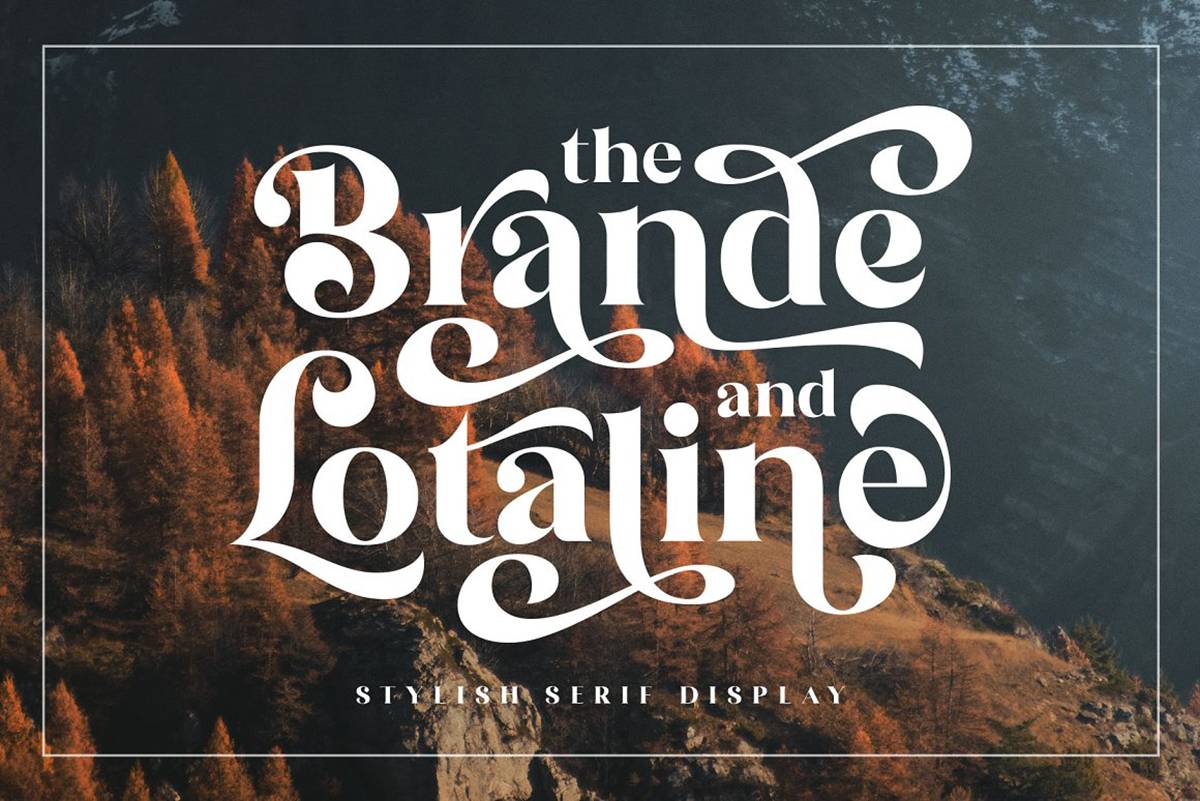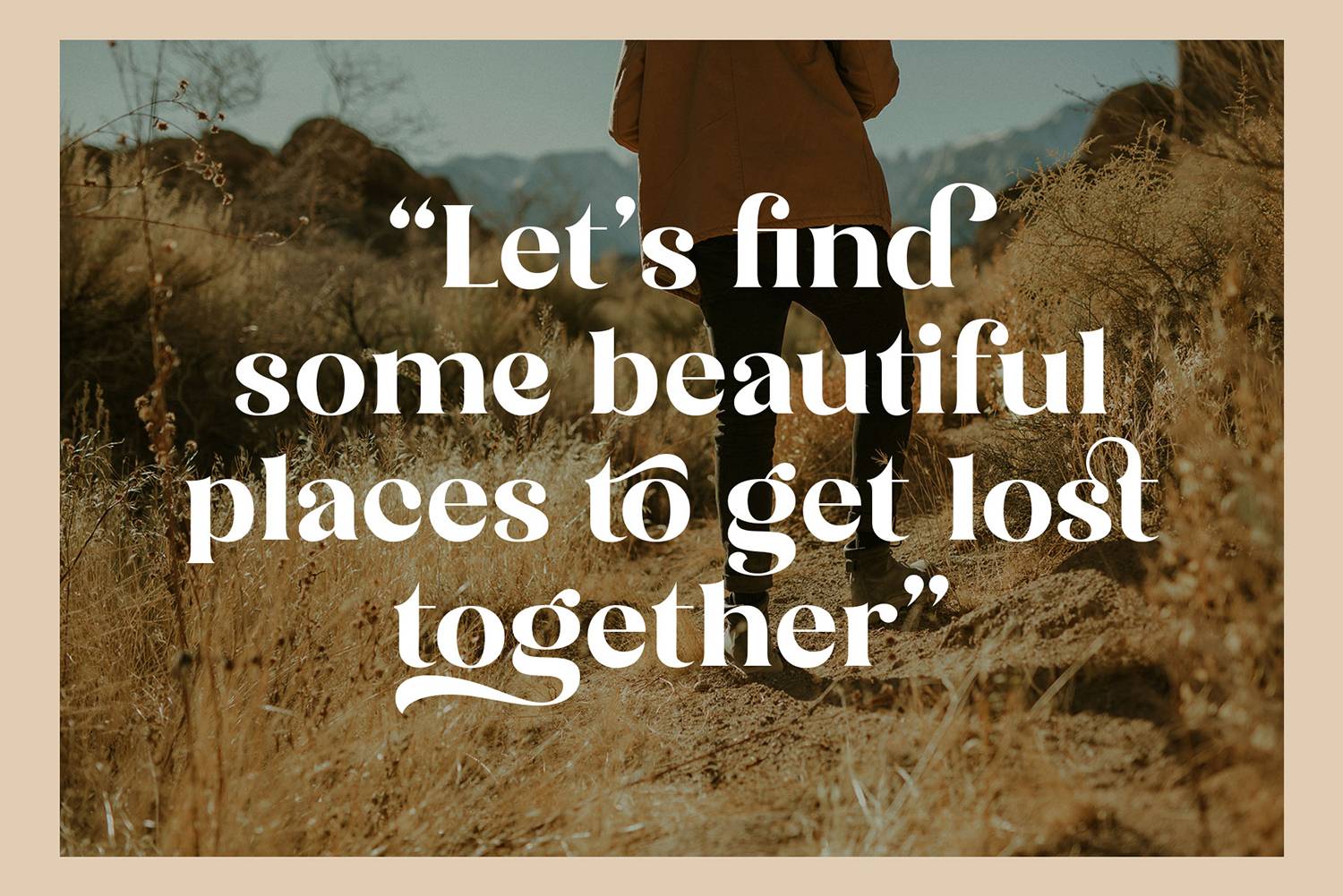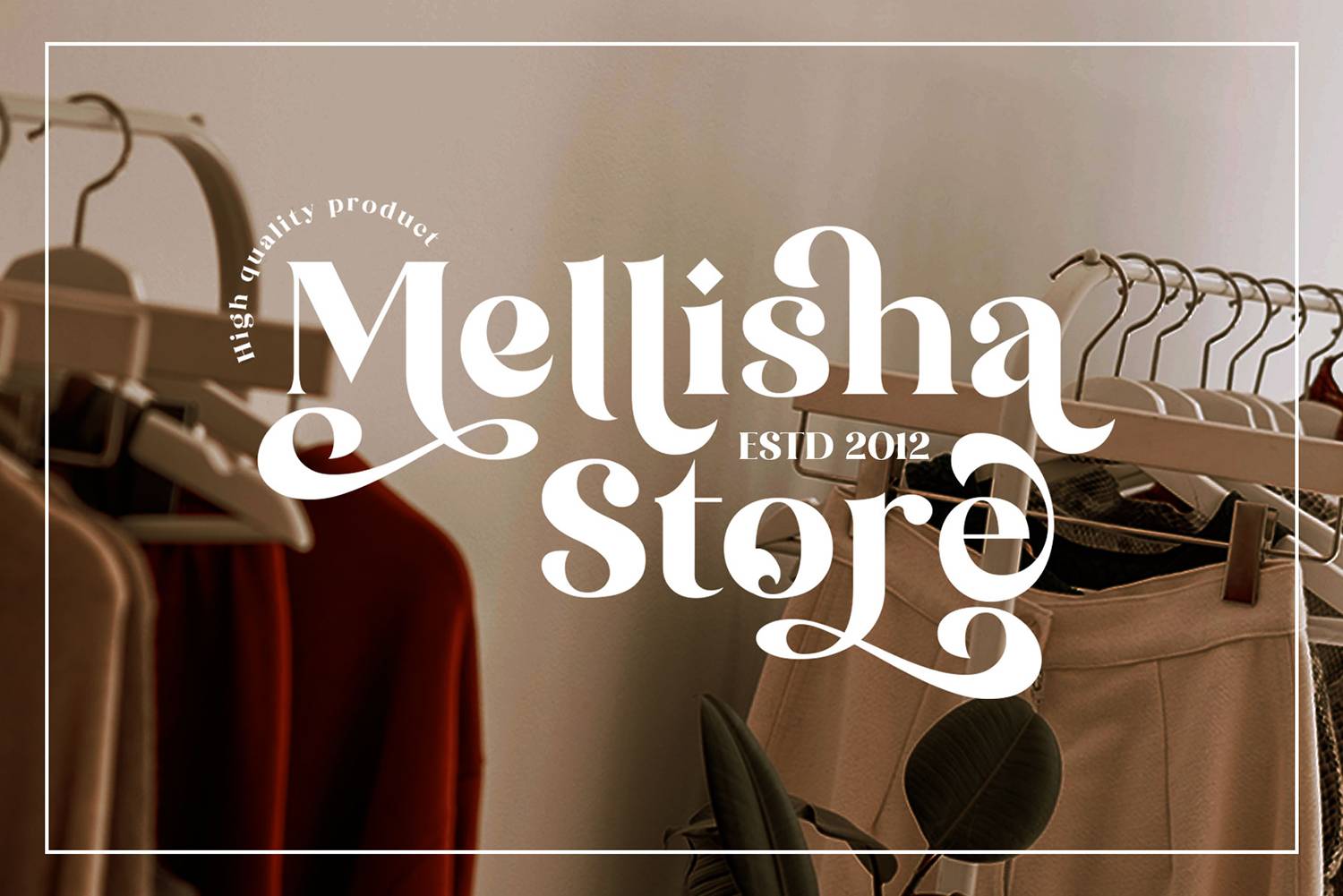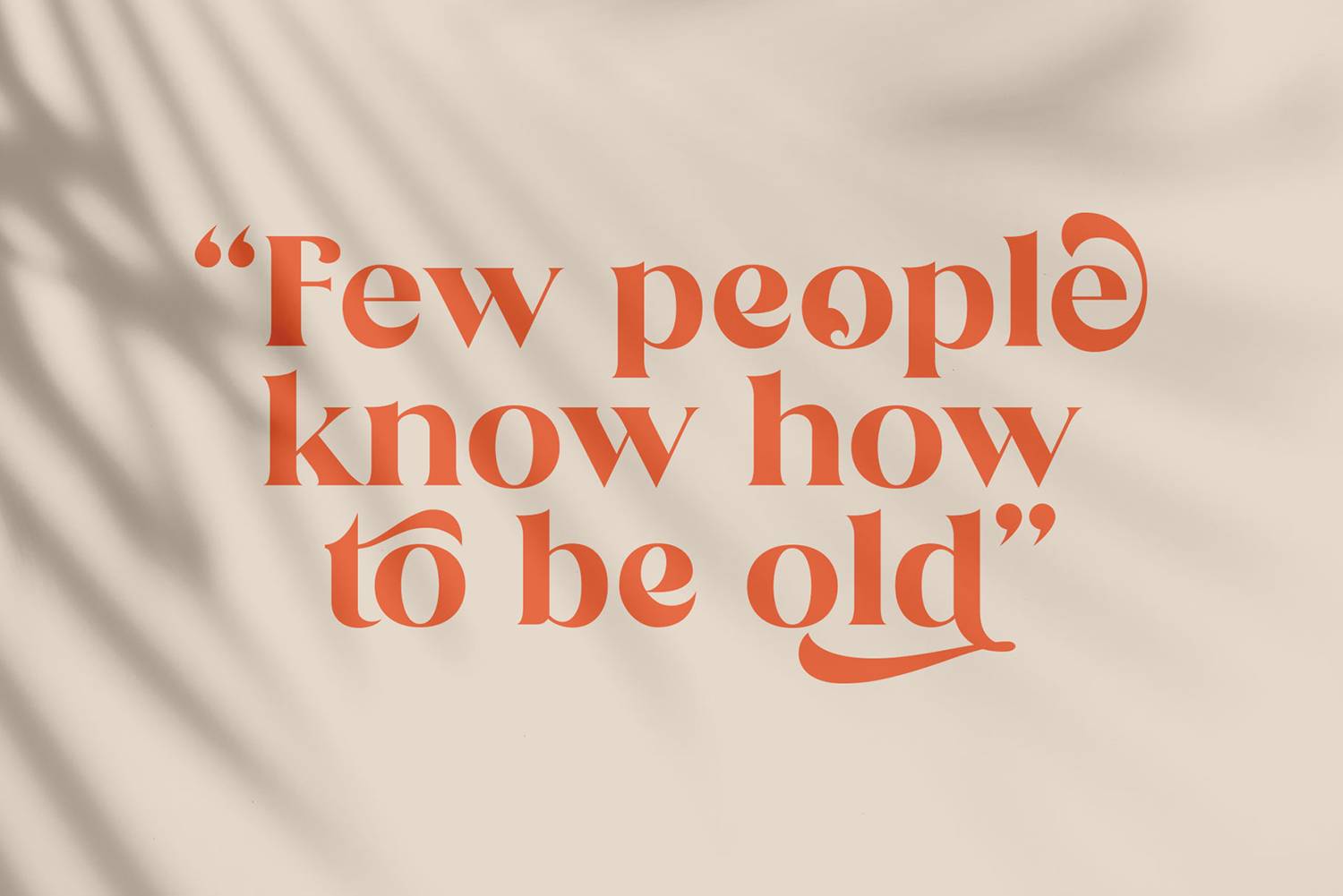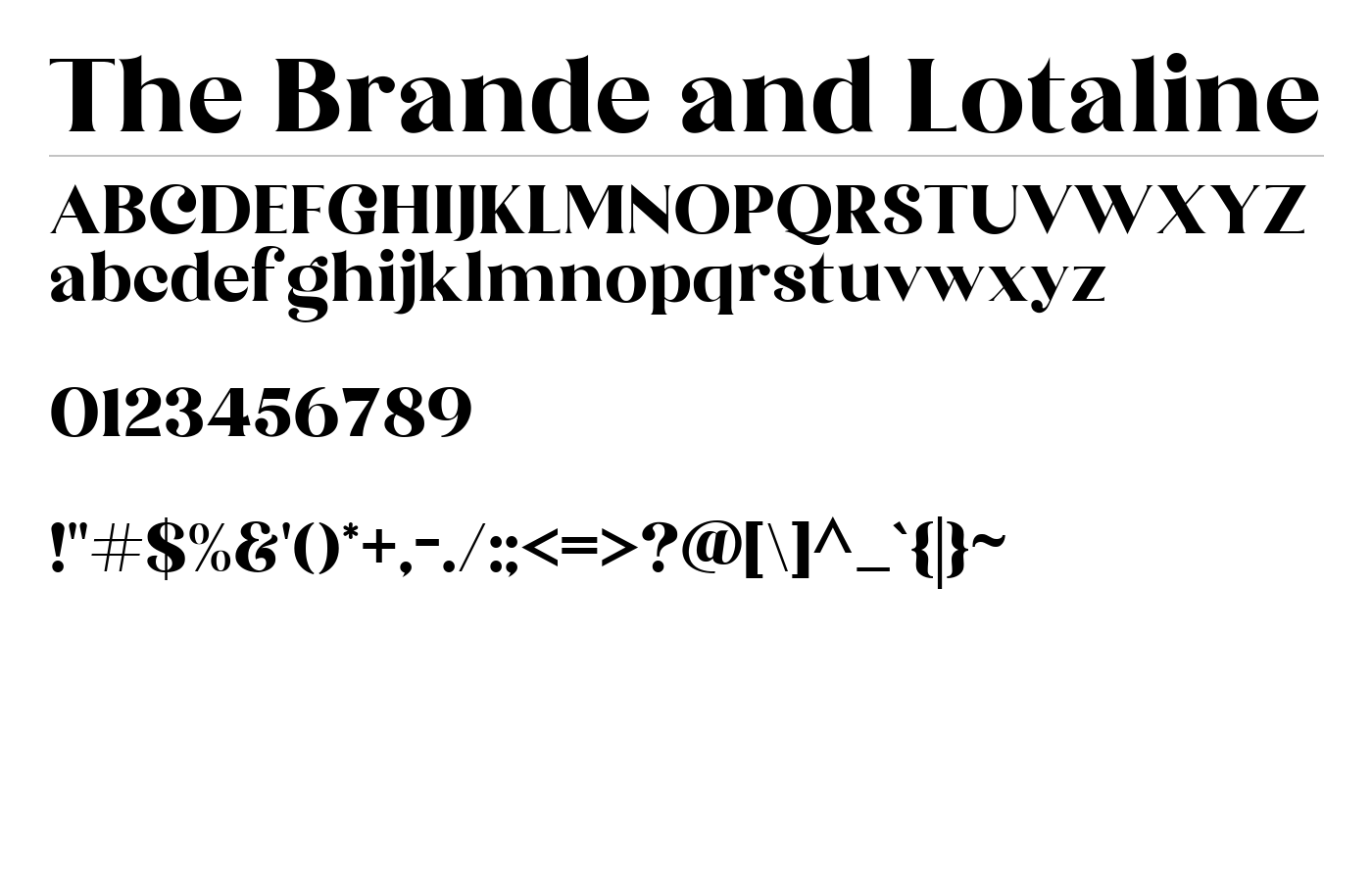
The Brande and Lotaline font is a bold, modern serif with a strong contrast between thick and thin strokes, giving it an elegant yet commanding presence. Its stylish curves and refined details make it perfect for luxury branding, editorial headlines, and sophisticated logos where a blend of classic charm and contemporary flair is desired.
The Brande and Lotaline Font
About The Brande and Lotaline Font
| Font family | The Brande and Lotaline Font |